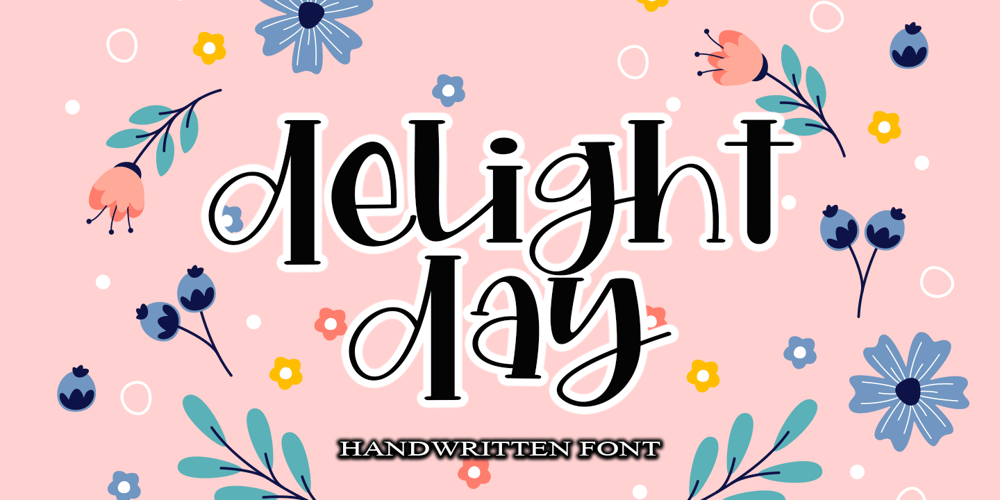
Delight Day Font Family was designed by Arief Tri Sulistiyono and published by Supersemarletter. Delight Day contains 1 styles and family package options. Delight Day embodies fun, quirkiness and authenticity. This enchanting handwritten font will turn any creative idea into a true standout. Provide ligatures with special make the design letter looks incredible. Honestly it works perfectly for headlines, logos, posters, packaging, T-shirts and much more.Font Features :• Regular version• Character set A-Z in uppercase and lowercase• Ligatures in Lowercase and special• Numerals & Punctuation• Accented Characters• Multiple Languages SupportedRecommended to use in Adobe Illustrator or Adobe Photoshop with opentype feature.If you have questions, just send me a message and I’m glad to help.